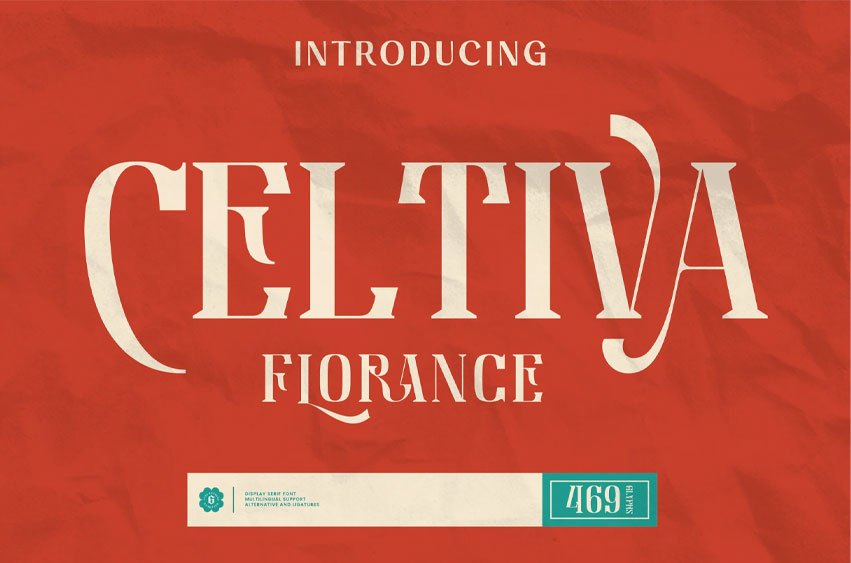
Celtiva Florance Font
Celtiva Florance Font is a display serif font. This font has an organic style with a subtle vintage touch, giving it a warm, natural, and slightly nostalgic feel.
The shapes flow naturally and feel a bit handcrafted, making the font look friendly and full of character. This font also good for your project like logotypes, magazine headlines, posters, cover albums and much more.
Highlight Celtiva Florance font features, such as:
• Standard Glyph
• Stylistic Alternates & Ligatures
• Symbol & Punctuation
• Multiple Languages Support